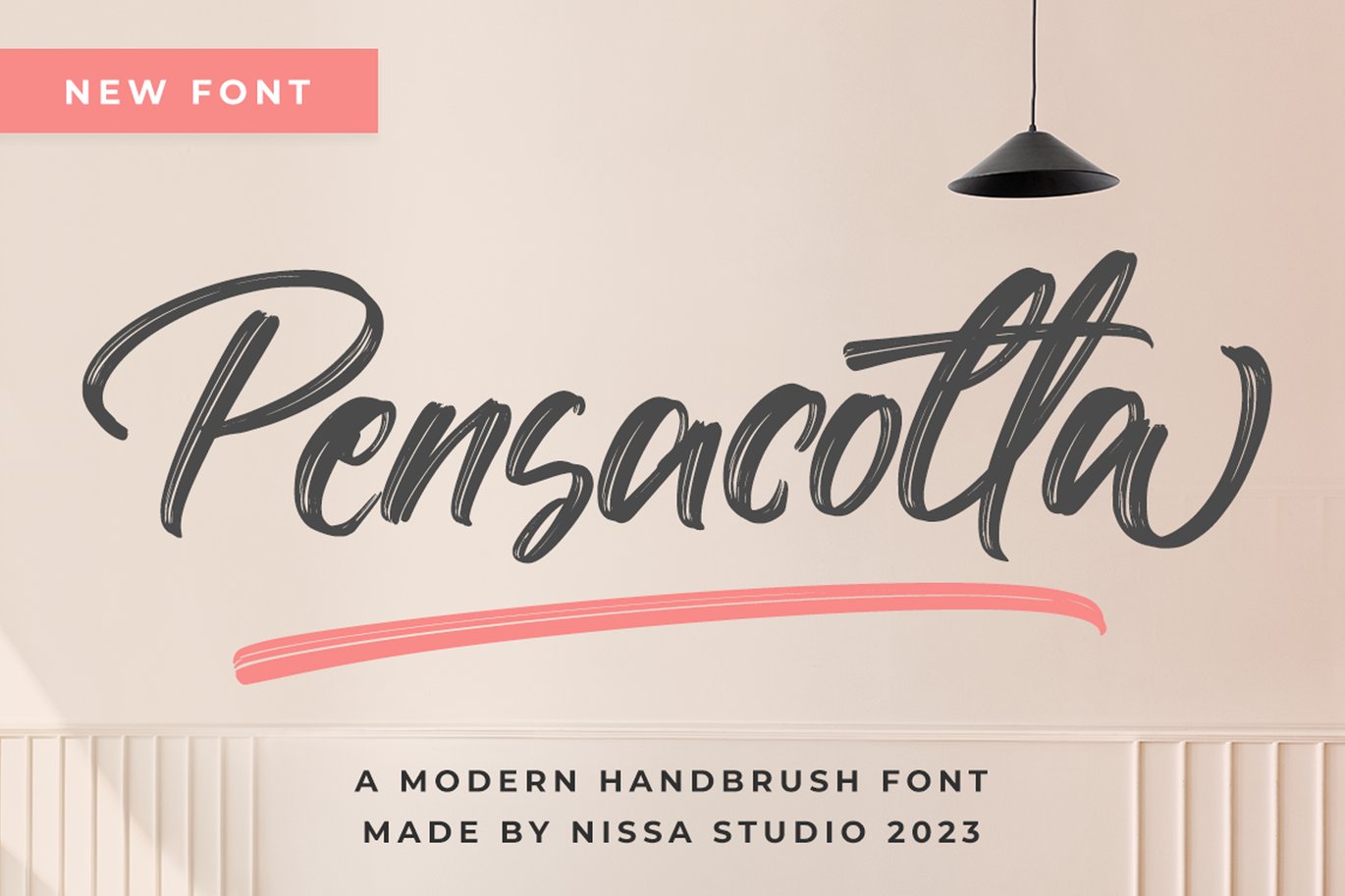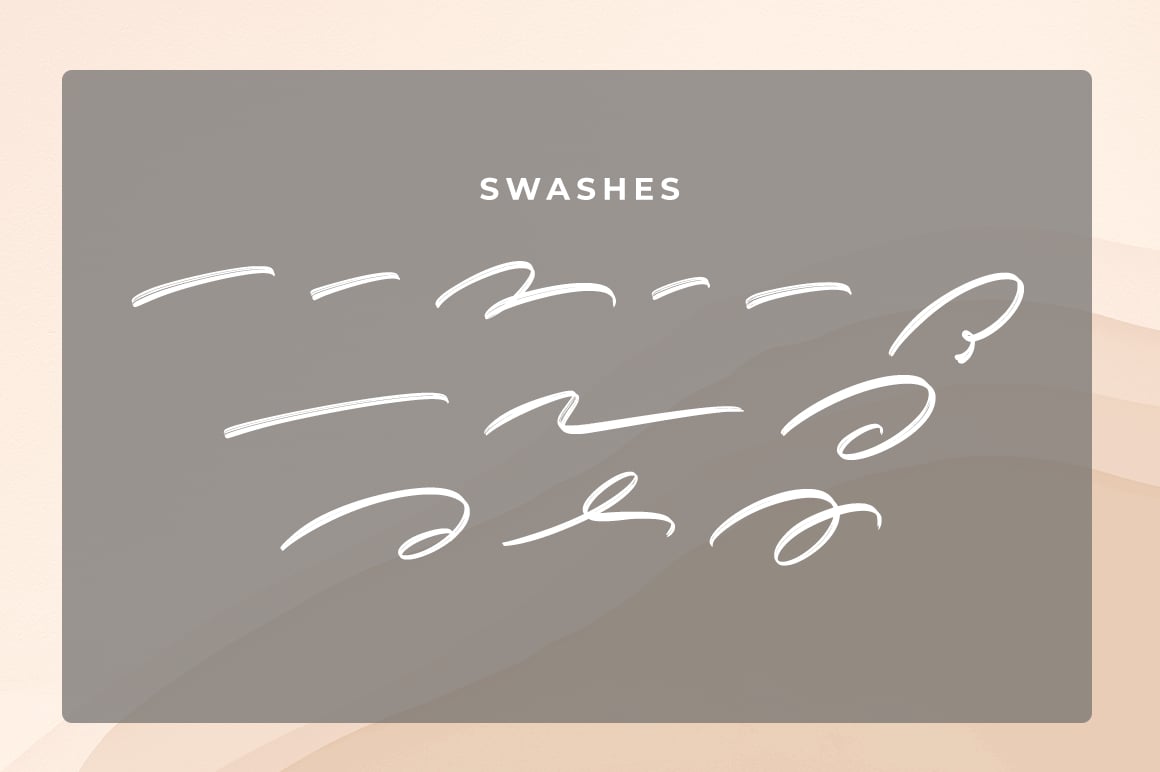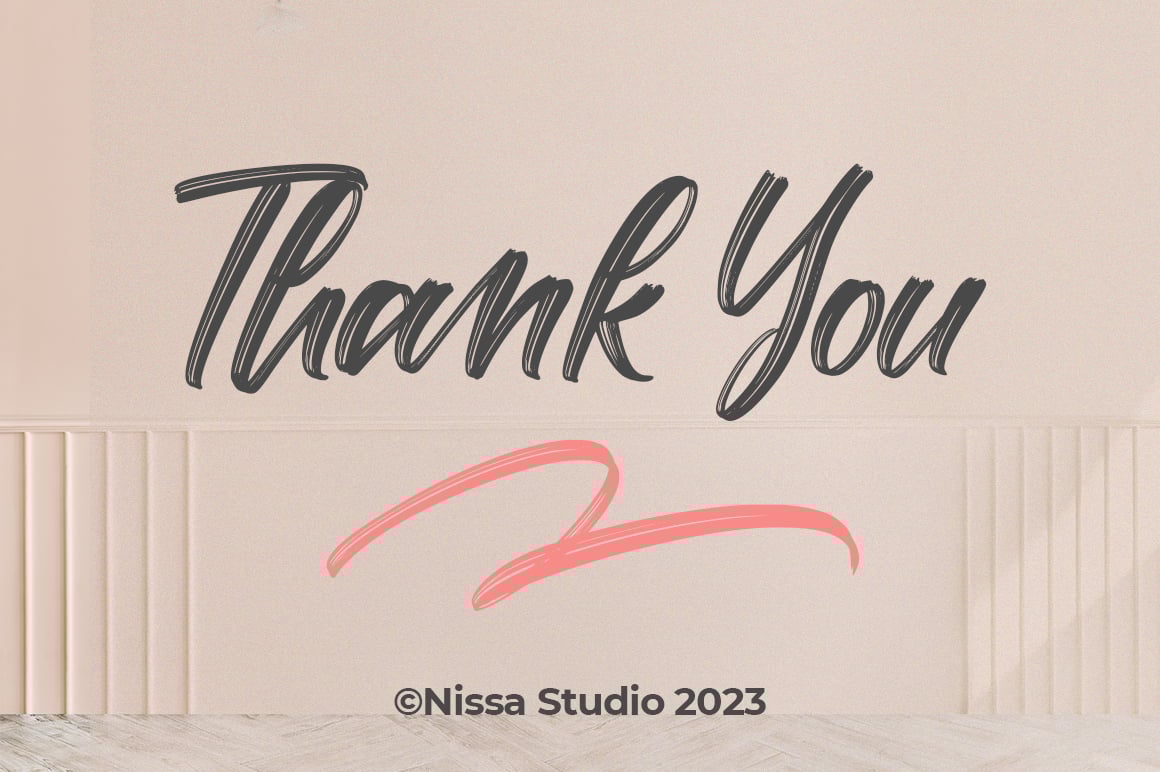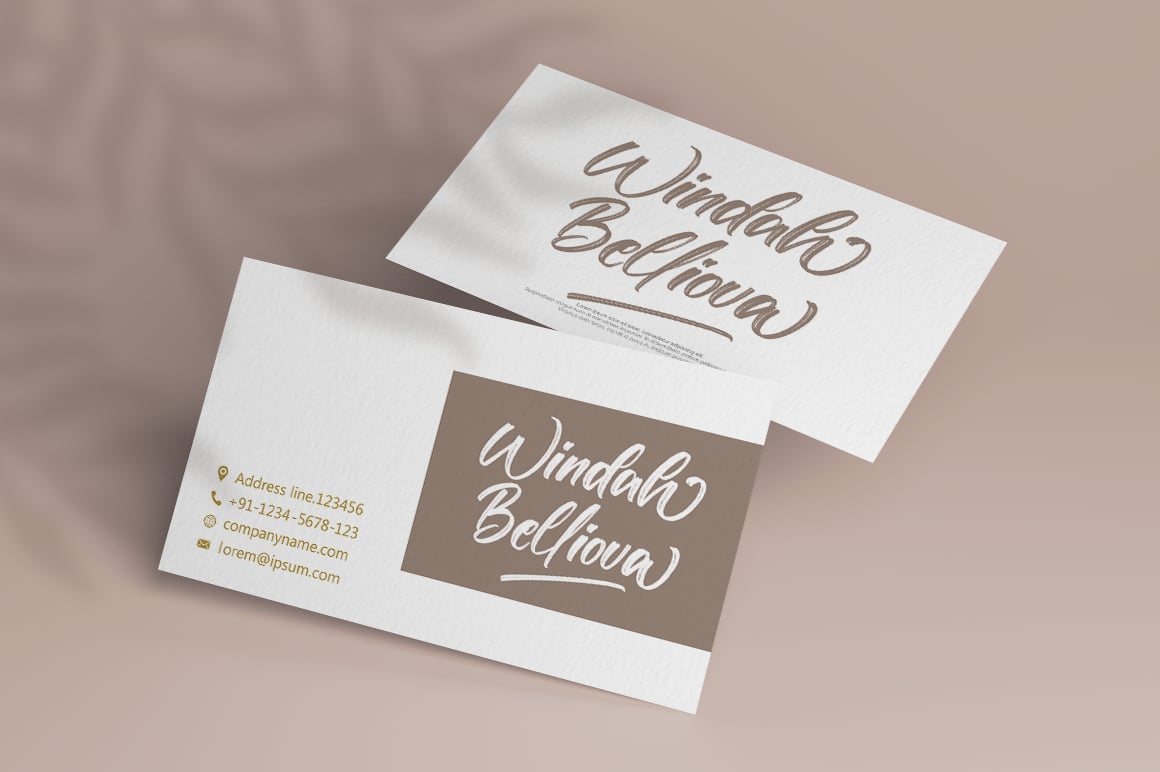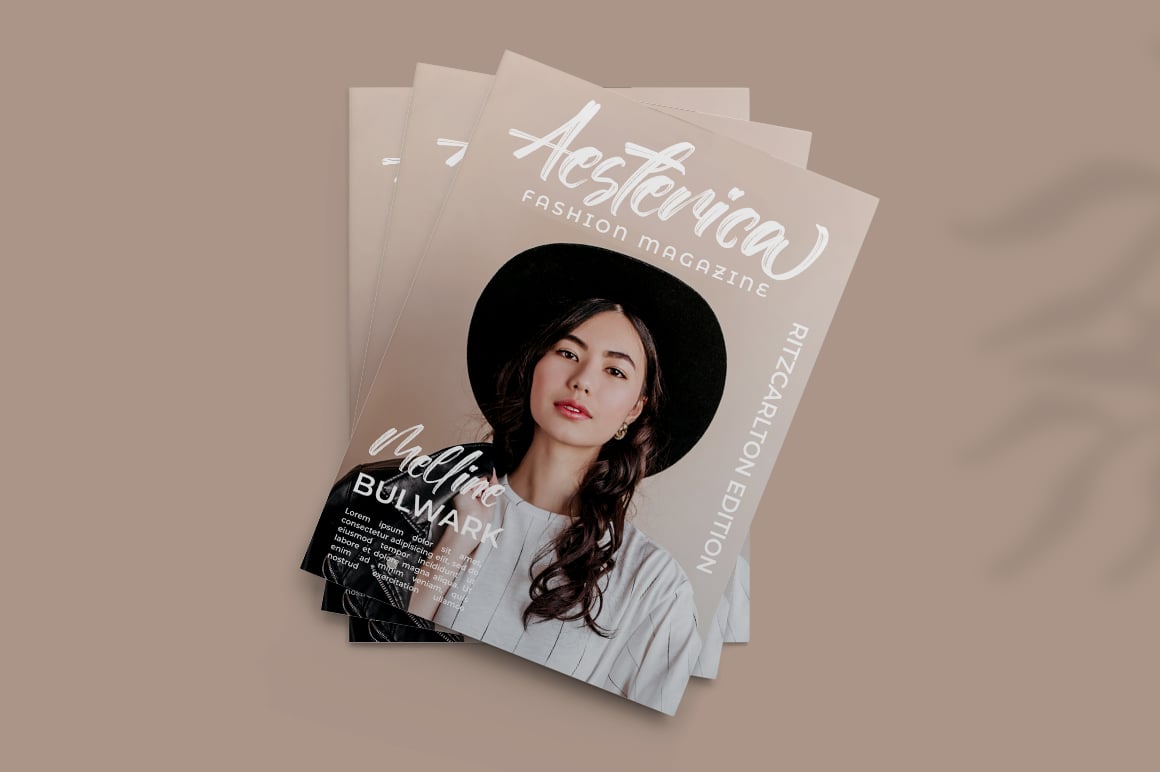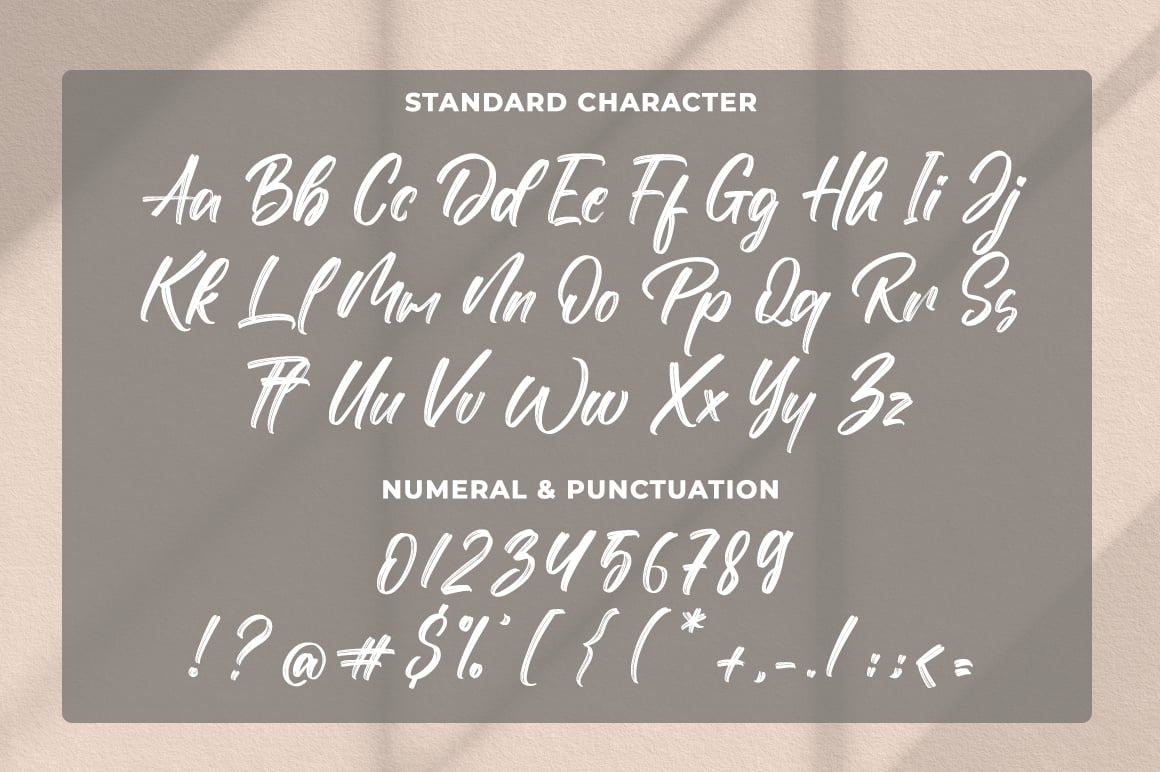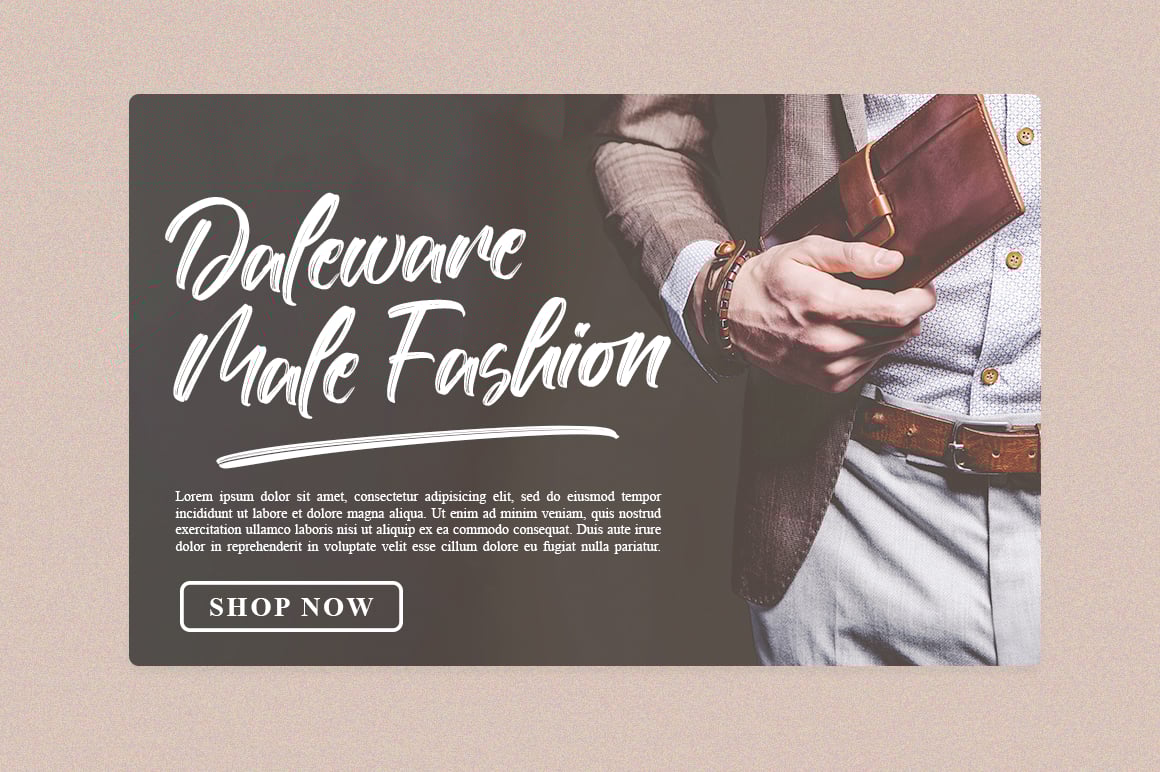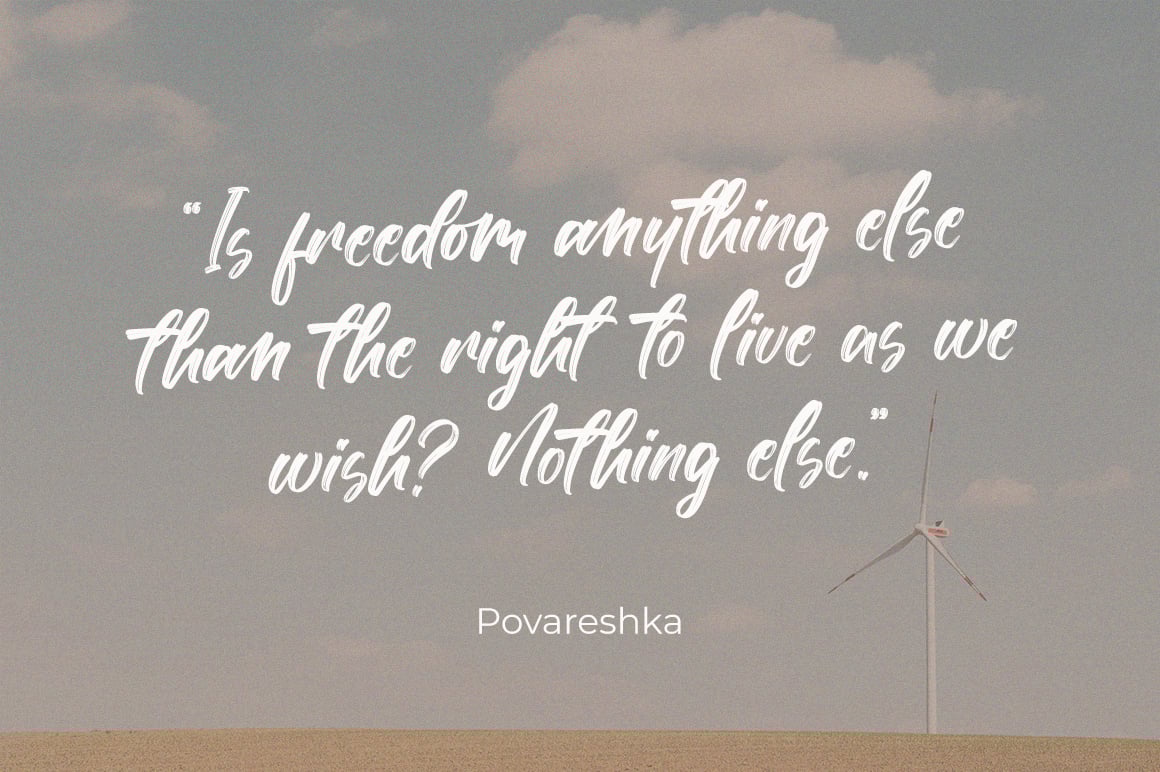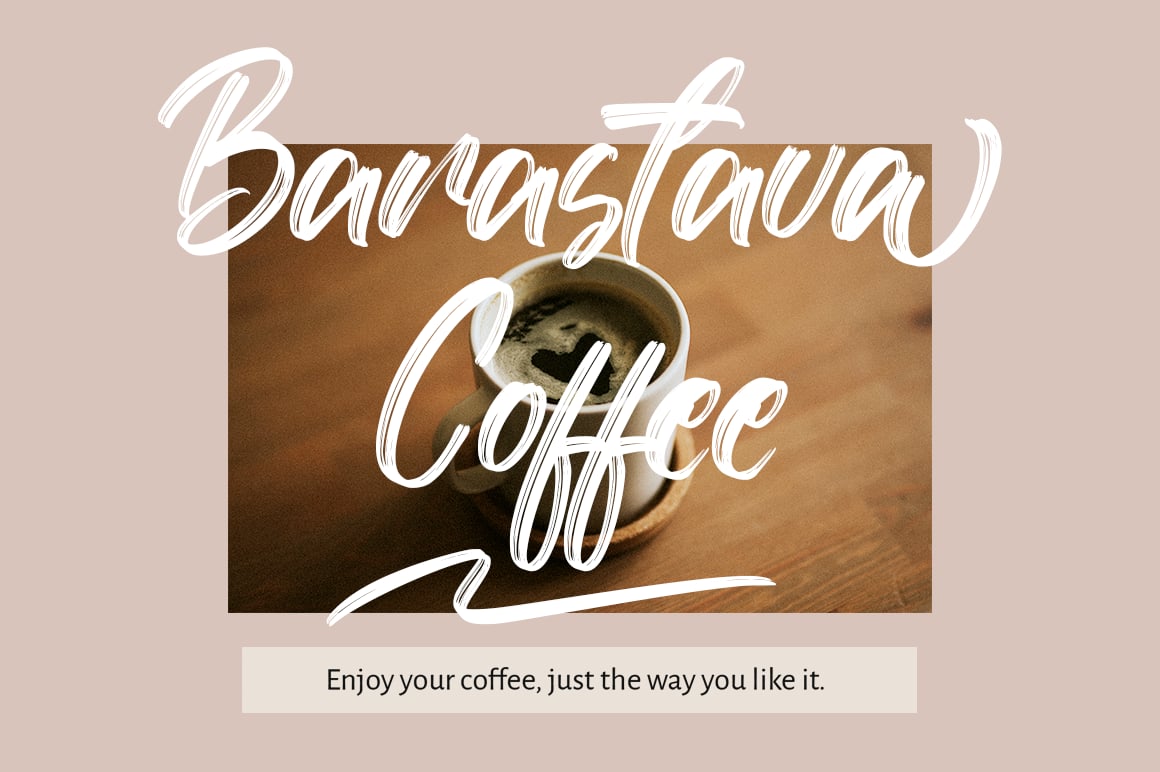
Pensacotta – Brush Font
Pensacotta is a gorgeous and bold brushed display font, crafted to give your headlines and logotype projects a stylish touch. This font reads as strong, confident, and dynamic, and can add tons of nostalgic character to your designs.
Each Font Has:
- Modern Handbrush Font
- Modern and Elegant Swash
- Special Ligatures